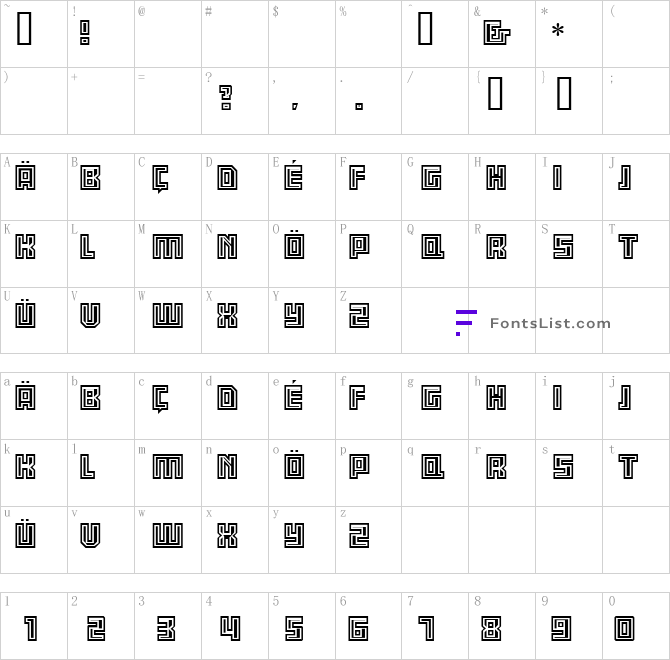
- Font Name:AB Engraved
AB-Engraved.ttf is a very beautiful artistic font, AB-Engraved.ttf is widely used in the design and printing of various books and pictures,AB-Engraved.ttf has a strong visual impact,AB-Engraved.ttf is a commonly used font in newspapers, magazines and books, and is used in posters, e-commerce Poster design, store design, logo design, font design and other fields.AB-Engraved.